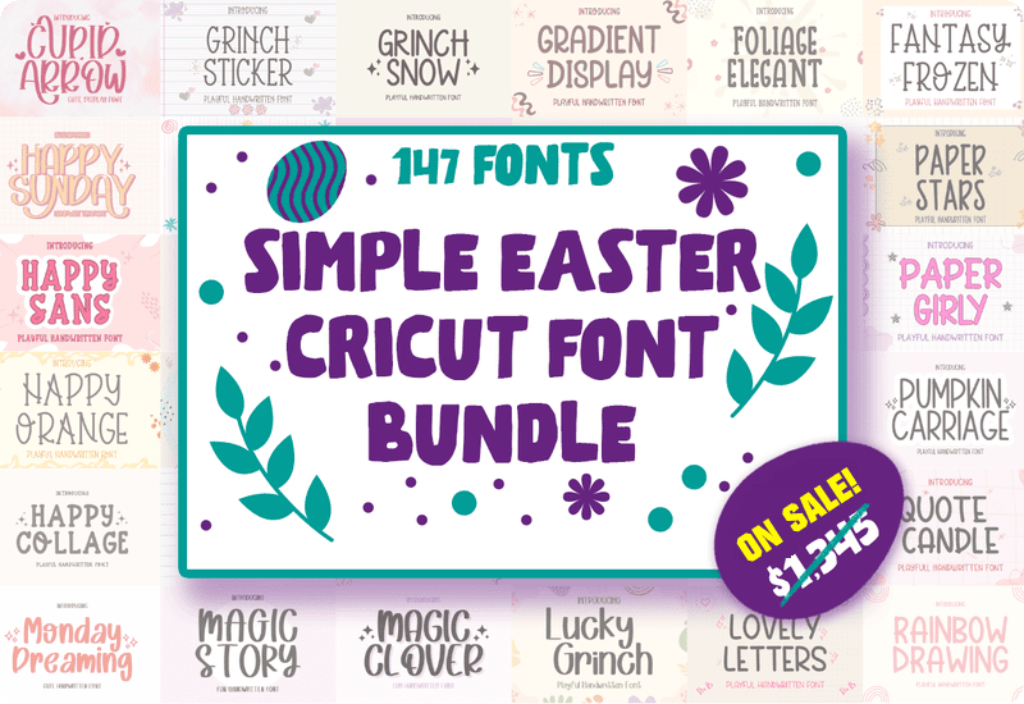
The Simple Easter Cricut Font Bundle is a comprehensive collection of 147 premium fonts designed to bring a playful, festive, and elegant touch to your creative projects. Whether you are working on Cricut crafts, DIY projects, greeting cards, invitations, t-shirts, home decor, or digital designs, this versatile bundle offers endless possibilities to create stunning designs effortlessly.
What’s Included in the Simple Easter Cricut Font Bundle?
The Simple Easter Cricut Font Bundle features an extensive variety of styles, from playful scripts and handwritten fonts to elegant display and decorative fonts. With a total of 147 fonts, you’ll always have the perfect font for every project, whether you want something whimsical, romantic, or sophisticated.
Highlighted Fonts in the Bundle:
- Turning Years Script & Handwritten Font – Perfect for heartfelt messages and invitations.
- Festive Joyful Script & Handwritten Font – Brings a playful and cheerful vibe to your designs.
- Balloon Arches Script & Handwritten Font – A fun and eye-catching choice for party themes.
- Celebrate Elegant Script & Handwritten Font – Ideal for formal occasions and sophisticated designs.
- Grinch Sticker Display Font & Little Grinch Script – Add a playful and festive touch to holiday projects.
- Classic Beauty Sans Serif Font & Romantic Celebrate Slab Serif Font – Offers timeless elegance and versatility.
- Happy Faces Script & Handwritten Font – Brings a cheerful, lighthearted style to your work.
- Sweet Treats Script & Handwritten Font & Wonder Dreams Slab Serif Font – Perfect for fun, colorful, and themed designs.
- Creative Fantasy Script & Handwritten Font & Dreaming Nebula Sans Serif Font – Adds a touch of whimsy and fantasy to your creations.